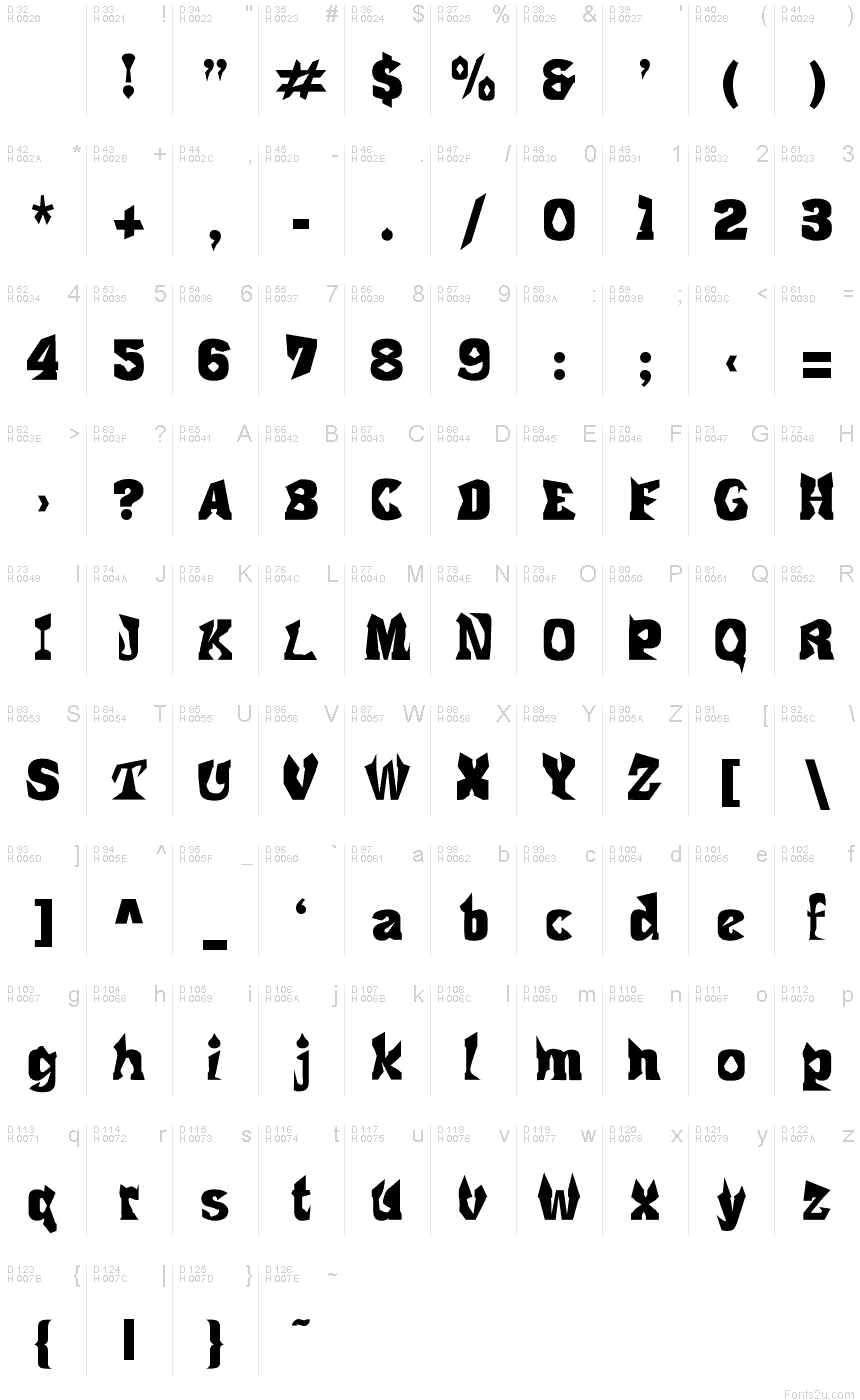
Reject
Reject is a free distorted blackletter display font by Graphic Galaxy, built around heavy, rounded letters cut with thorny medieval points. The style feels blunt and mischievous rather than formal, with swollen curves, wedge-like joins, and a teardrop accent on the j that gives the whole wordmark a slightly punk, poster-made bite.
This free font fits record sleeves, horror-comedy titles, zine covers, club flyers, and streetwear graphics where a gothic cue needs to feel rougher and more playful. It also works for short headlines, logo sketches, and title cards, because the dense shapes and sudden spikes make even a few letters carry a lot of attitude.